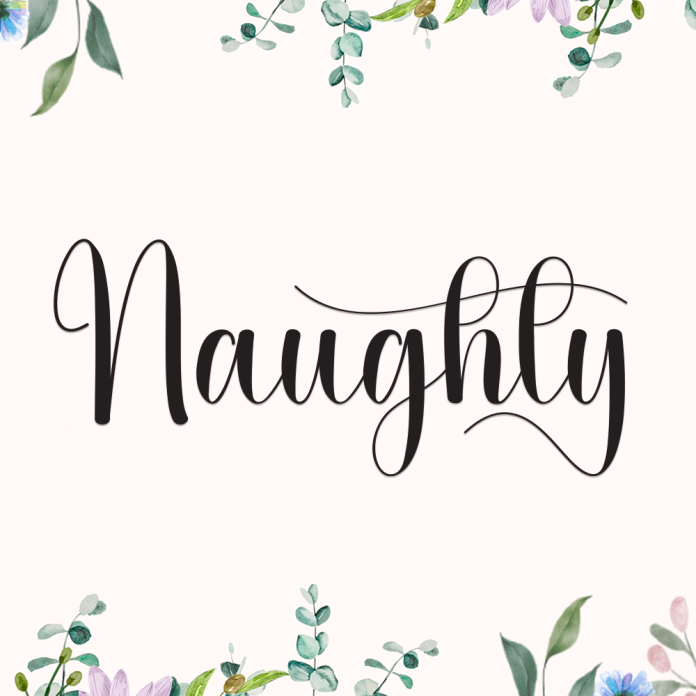
Naughty is a cheeky and playful handwriting font that adds a mischievous charm to any design. With its quirky curves and energetic letterforms, this font feels spontaneous—like a handwritten note passed in class.
Perfect for fun invitations, kids’ products, social media captions, and casual branding, Naughty gives your text a fresh and youthful personality.
Whimsical handwriting style with expressive flair
Ideal for children’s books, party designs, and personal notes
Balanced legibility with a lighthearted twist
Make your designs stand out with the carefree vibe of Naughty!